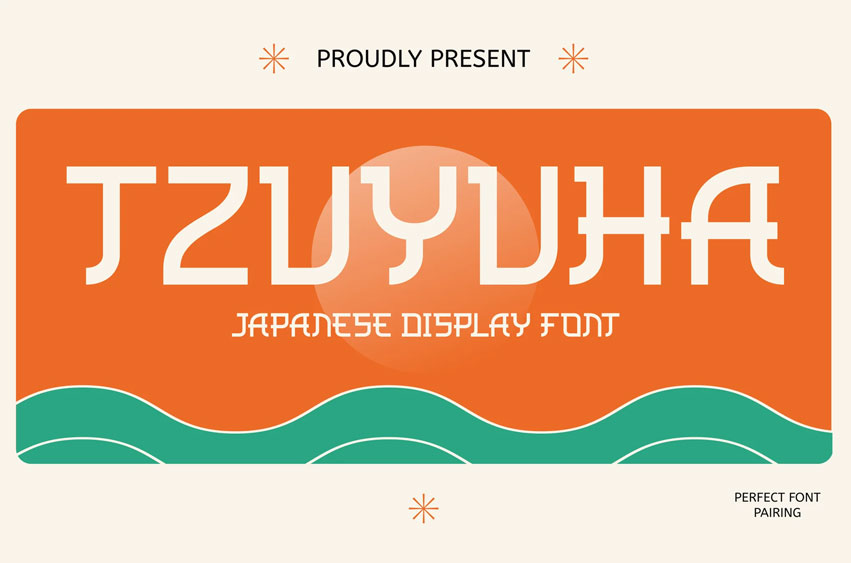
Tzuyuha Font Japanese Creative Font is a bold display typeface inspired by traditional Japanese aesthetics and modern geometric forms. Its structured yet fluid letterforms reflect the harmony between precision and artistic expression. The font features sharp angles, clean lines, and a balanced composition, making it ideal for branding, posters, packaging, and editorial design.
Tzuyuha embodies a fusion of tradition and innovation, perfect for evoking a sense of cultural depth while maintaining a contemporary edge. Whether used for minimalist layouts or bold typographic statements, this typeface brings a distinct character to any design project.